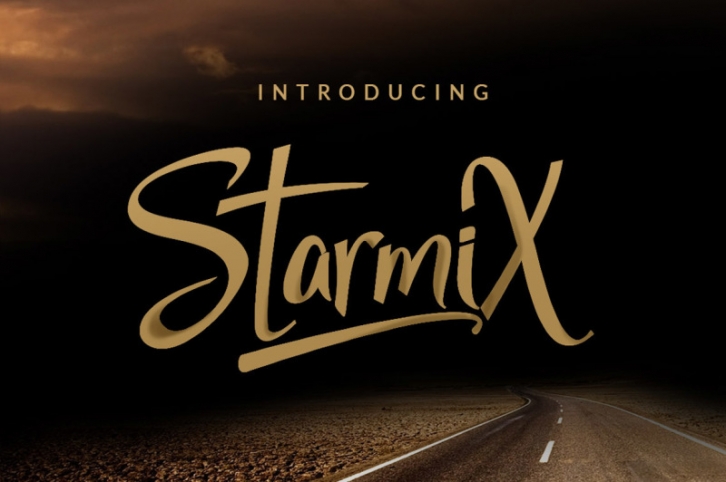
Introducing StarmiX Typeface a font that is very fresh and unique style handmade. StarmiX Typeface include swash and multi language. StarmiX Typeface is perfectly suited to logo, stationery, poster, apparel, branding, wedding invitation, card, tagline, layout design, and much more !!